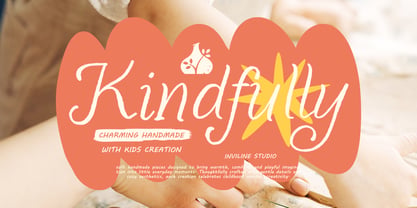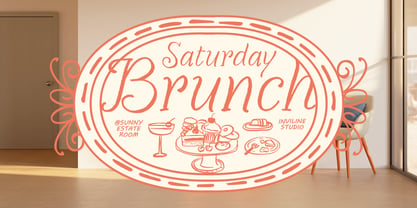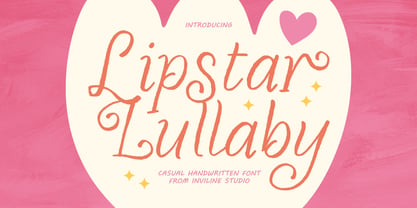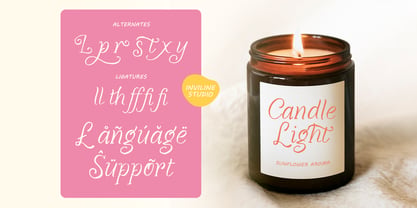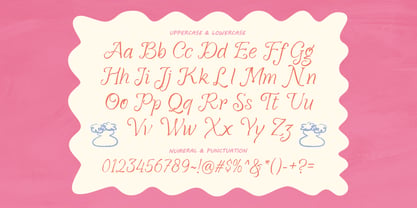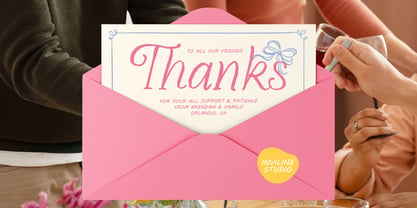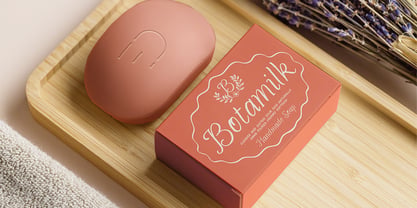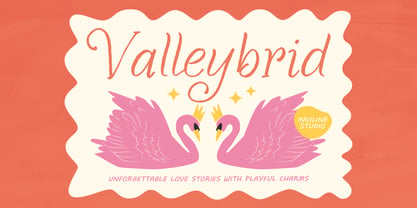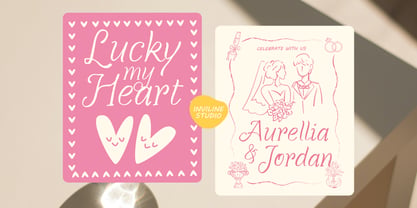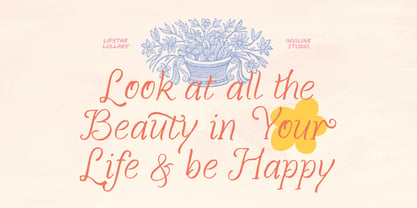
Lipstar Lullaby
by Inviline
The Lipstar Lullaby Font Family was designed by Virgiawan Listanto and published by Inviline. Lipstar Lullaby contains 1 styles. More about this family
Lipstar Lullaby is a casual handwritten font designed by Inviline Studio to celebrate childhood wonder and the magic of everyday moments. Moving away from cold, geometric structures, this typeface embraces the 2026 "Cute and Cozy" design trend, offering soft, approachable, and unintimidating letterforms.
Thoughtfully crafted with gentle details, Lipstar Lullaby is highly legible while retaining the charming, slightly unpredictable flow of real handwriting. It comes equipped with over 250 glyphs, featuring smart ligatures and playful alternates to ensure text looks natural and dynamic.
It is the ideal typographic choice for projects that require a warm, human touch—such as boutique kids' apparel, artisanal skincare packaging, weekend brunch menus, and unforgettable wedding stationery. The font also provides extensive multilingual support, allowing brands to spread positive, cozy messaging globally.